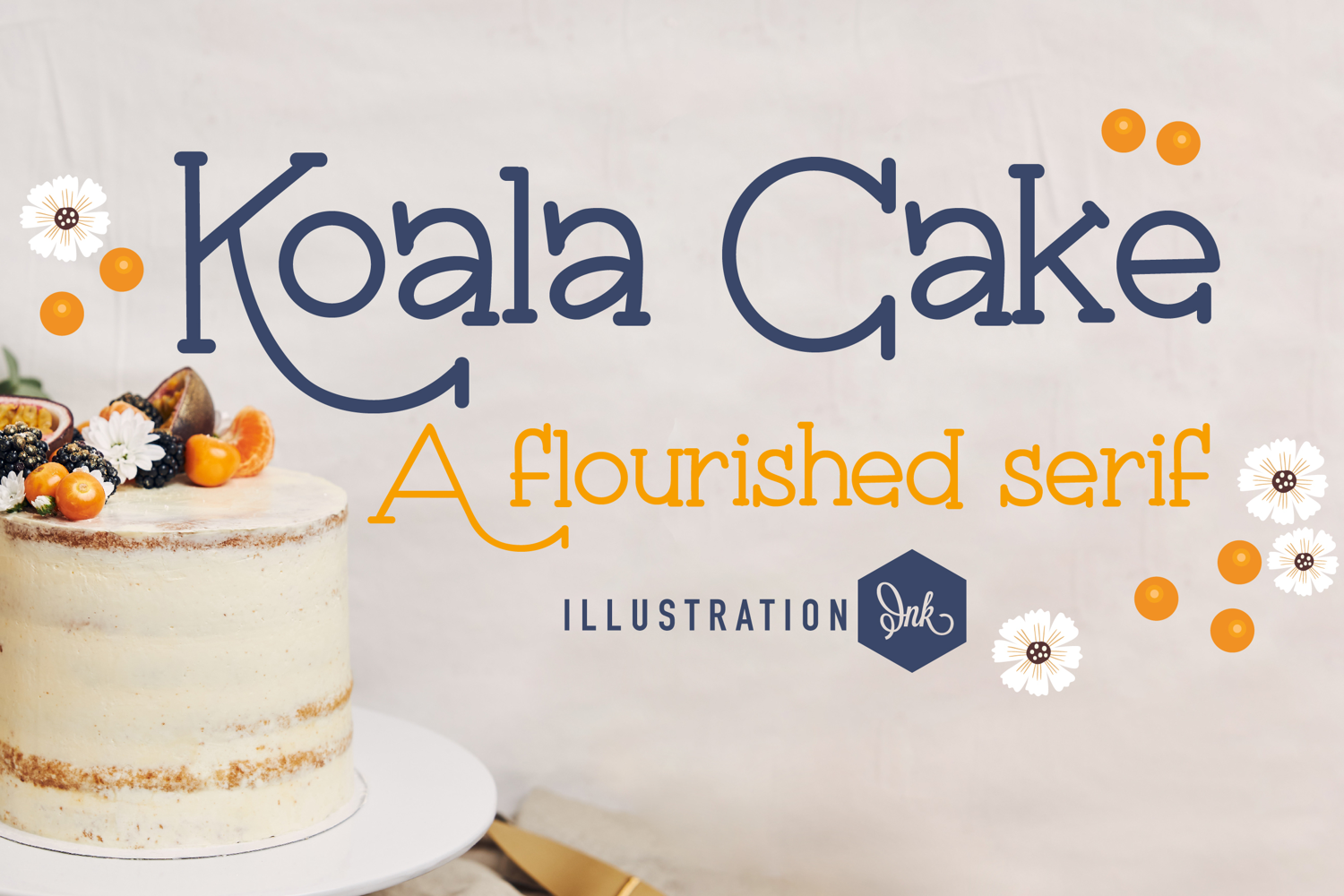
ZP Koala Cake
This hand-crafted font is a crafty serif with a some flourished, tailed, lettering.
• The letters are not perfectly uniform in size or shape.
• There may be slight variations in the spacing between letters and words.
• The font may have a "wiggly" or "squiggly" appearance.
• The font may be difficult to read at small sizes.